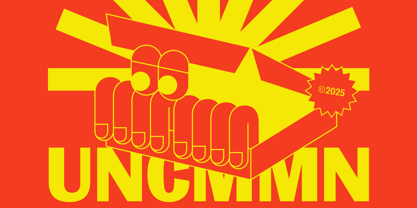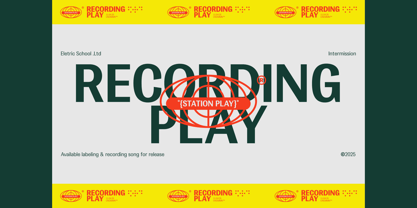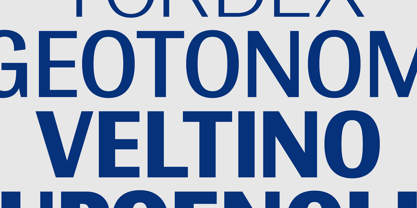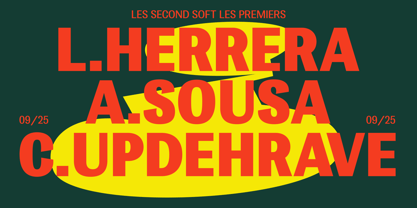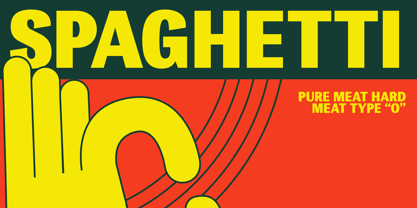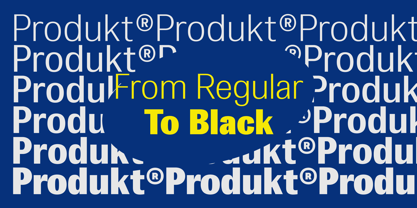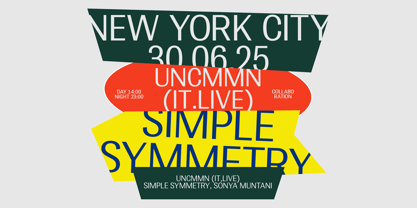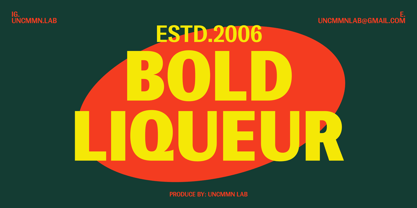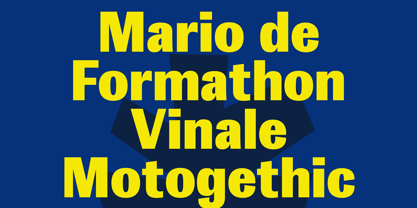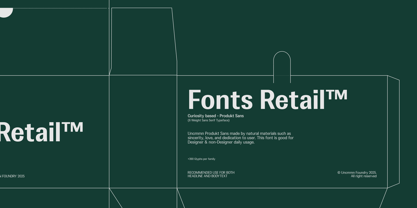
UNCMMN Produkt
by Uncmmn Lab
The UNCMMN Produkt Font Family was designed by Wahyu Ichsan Fauzi and published by Uncmmn Lab. UNCMMN Produkt contains 6 styles and family package options.
Uncmmn Produkt is a functional sans serif typeface with a modern approach and a solid structure. Designed for editorial use, branding, and digital interfaces, Produkt combines clean letterforms, balanced proportions, and subtle details that convey a professional and confident tone. With a versatile range of weights, it performs well in both body text and display settings. Its neutral yet strong character makes Produkt suitable for a wide range of visual contexts, making it a reliable choice for clear and contemporary communication.